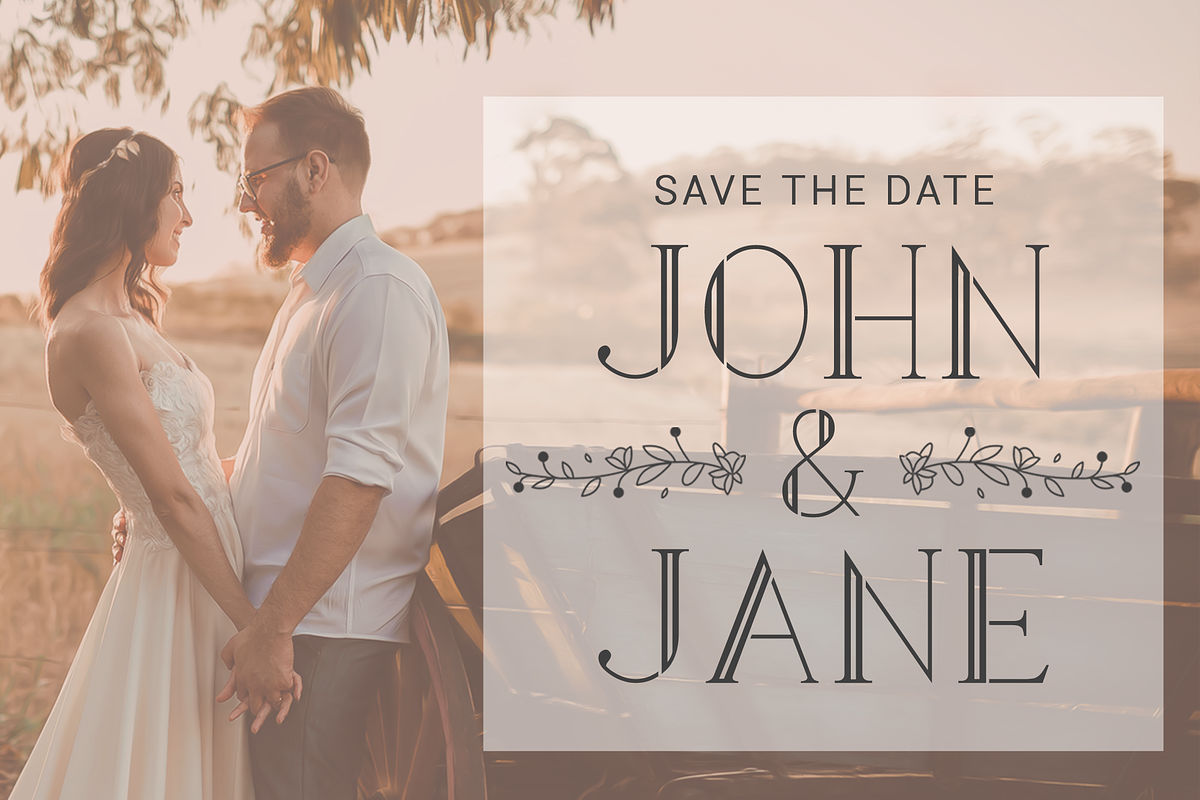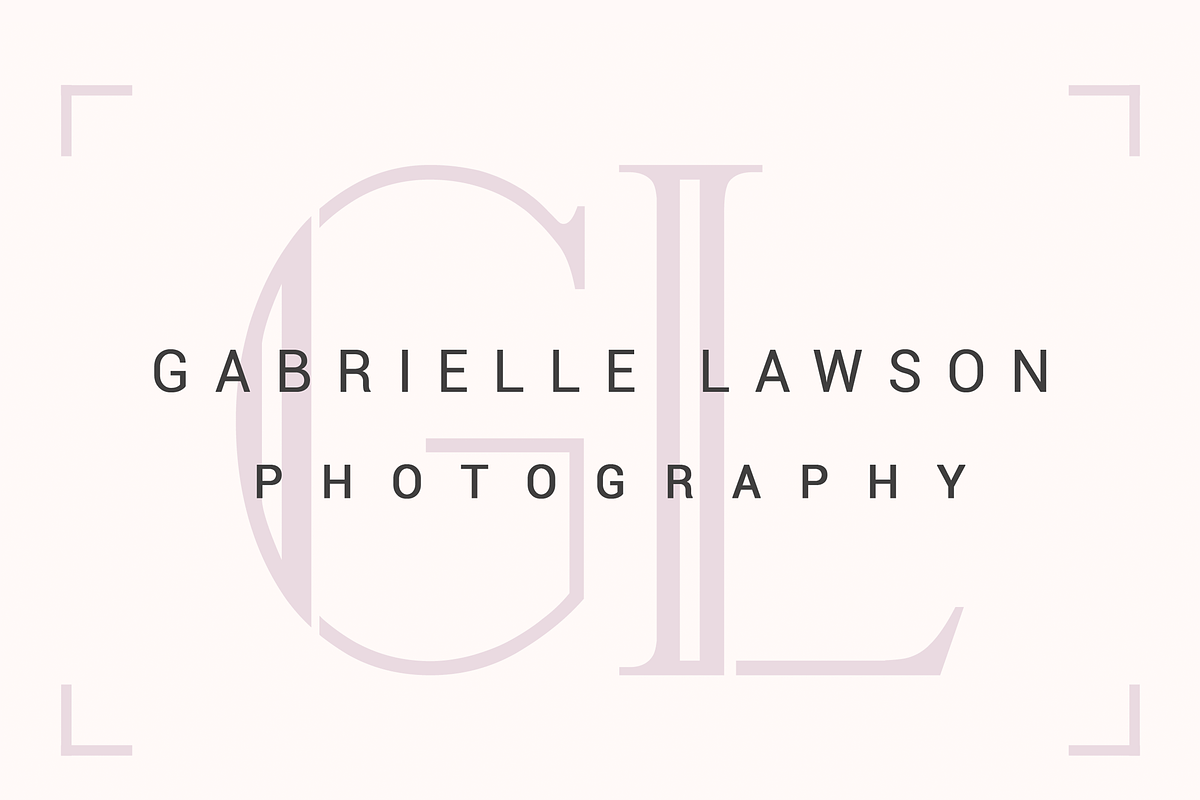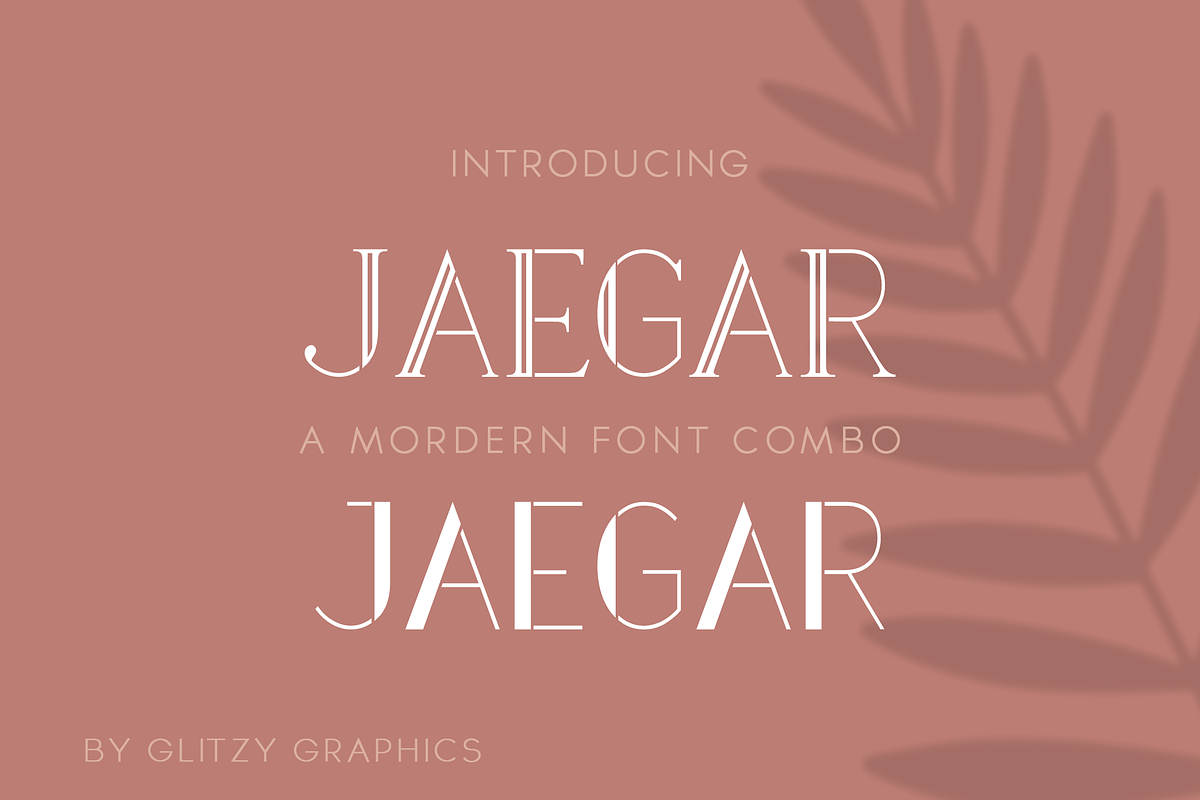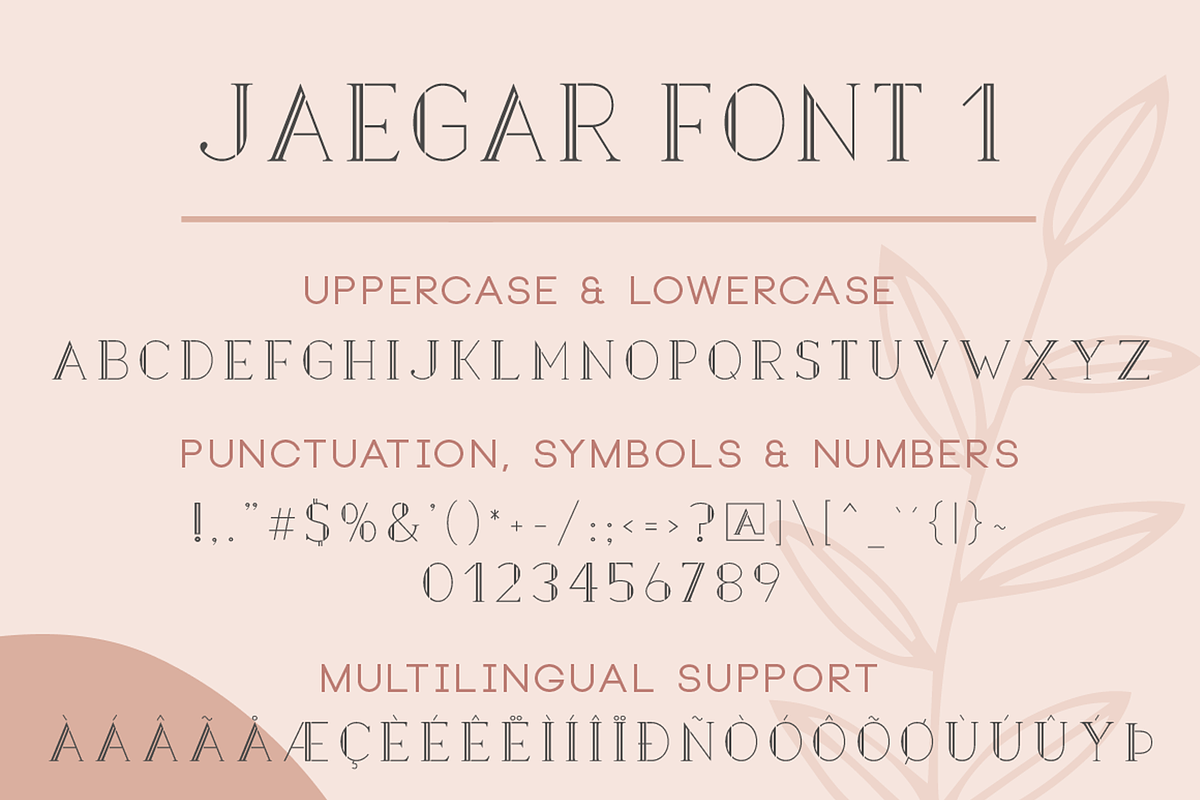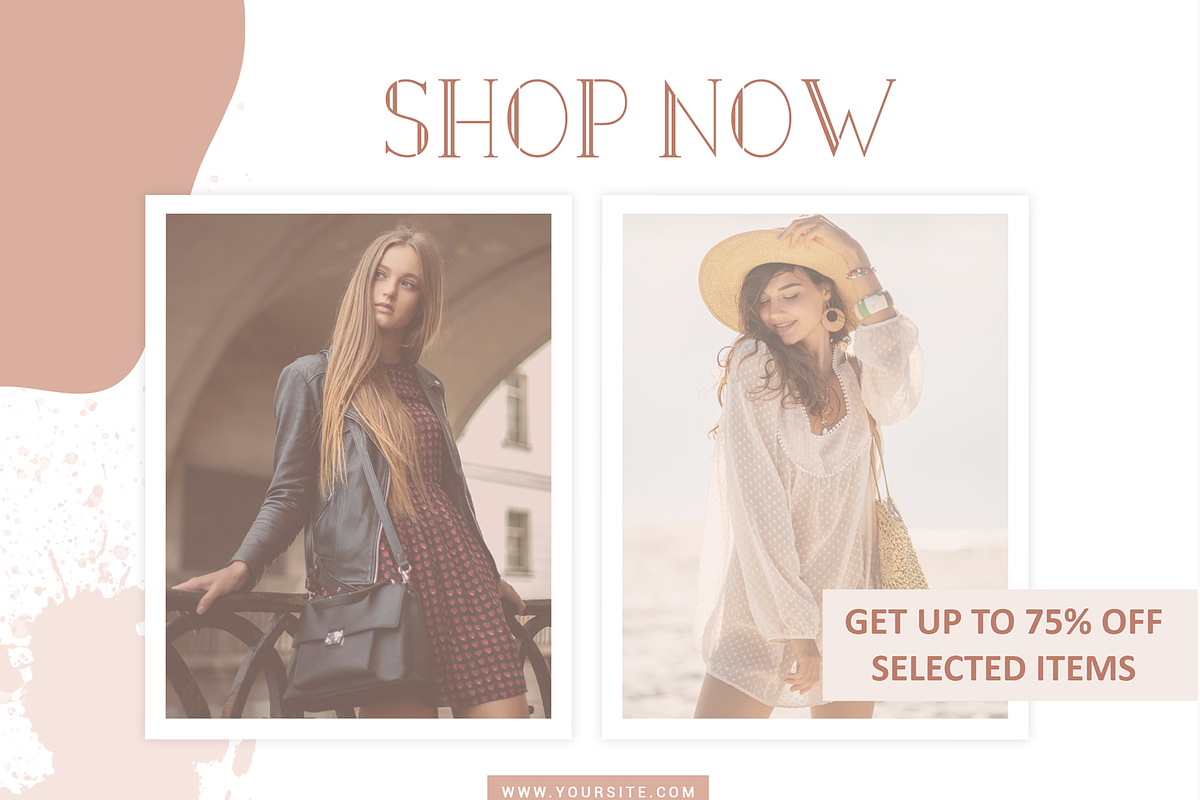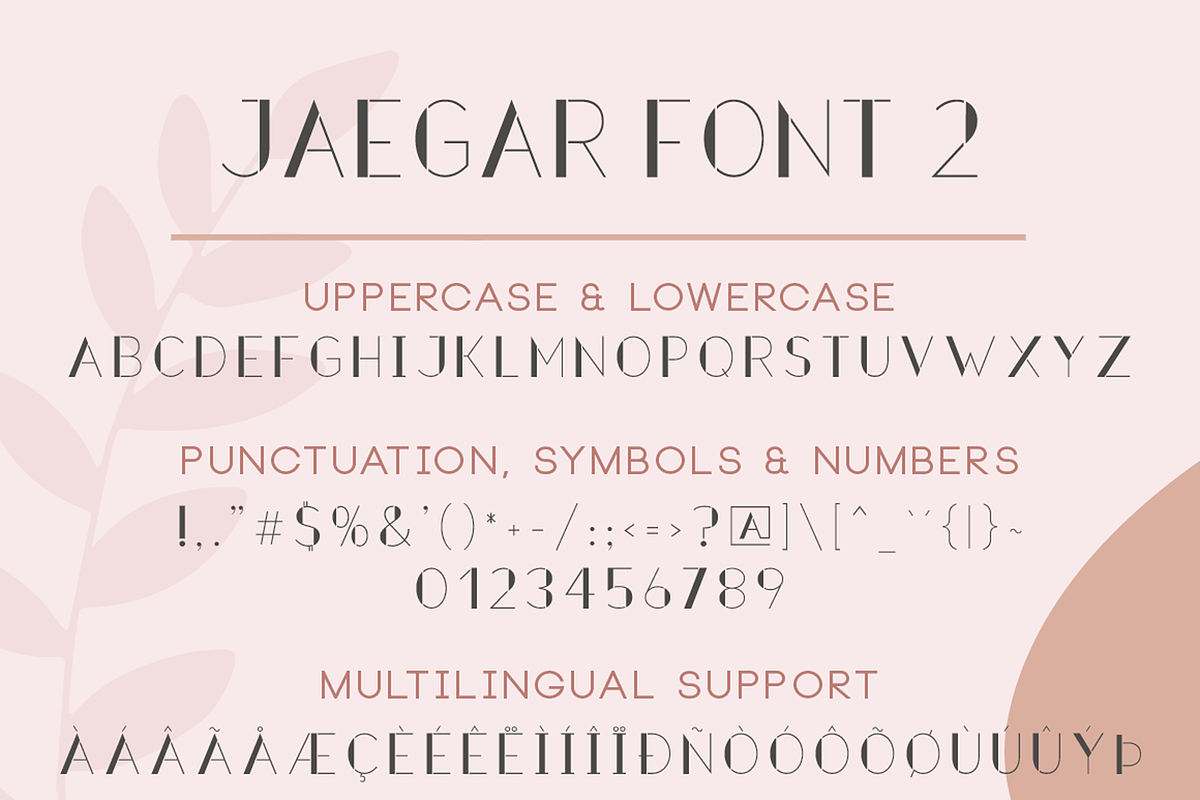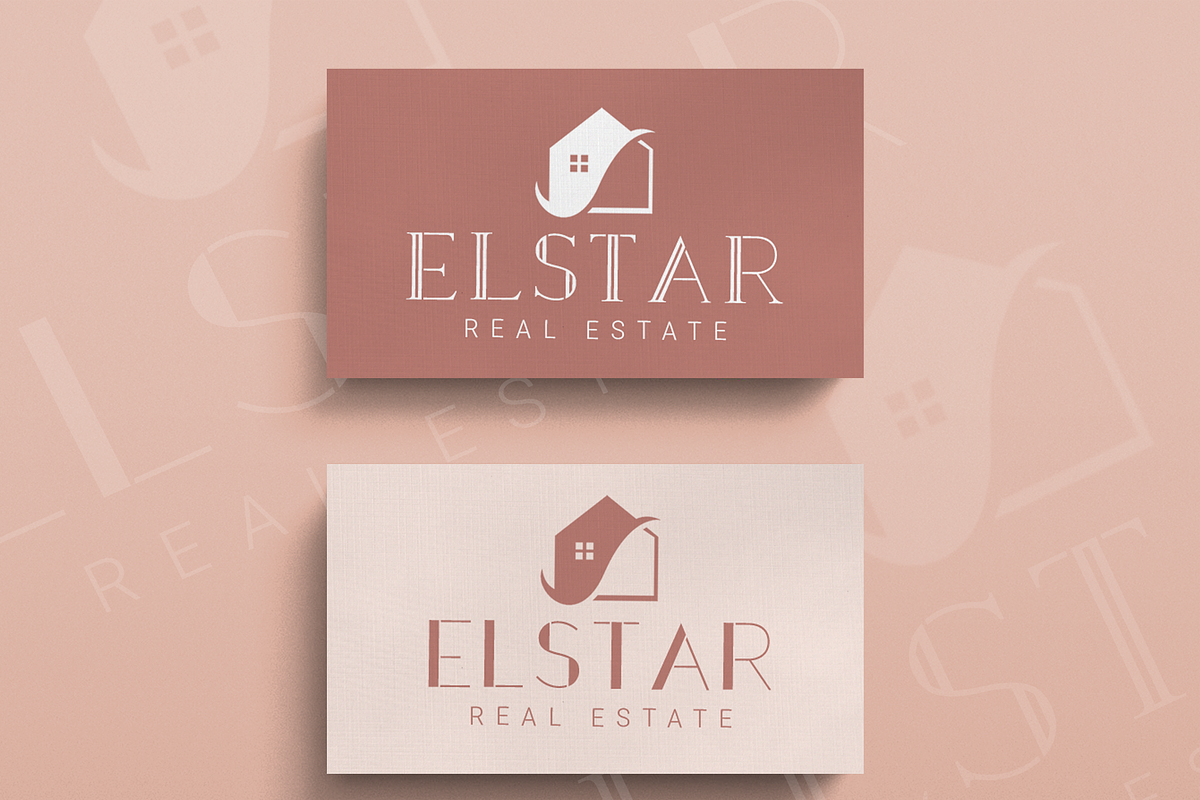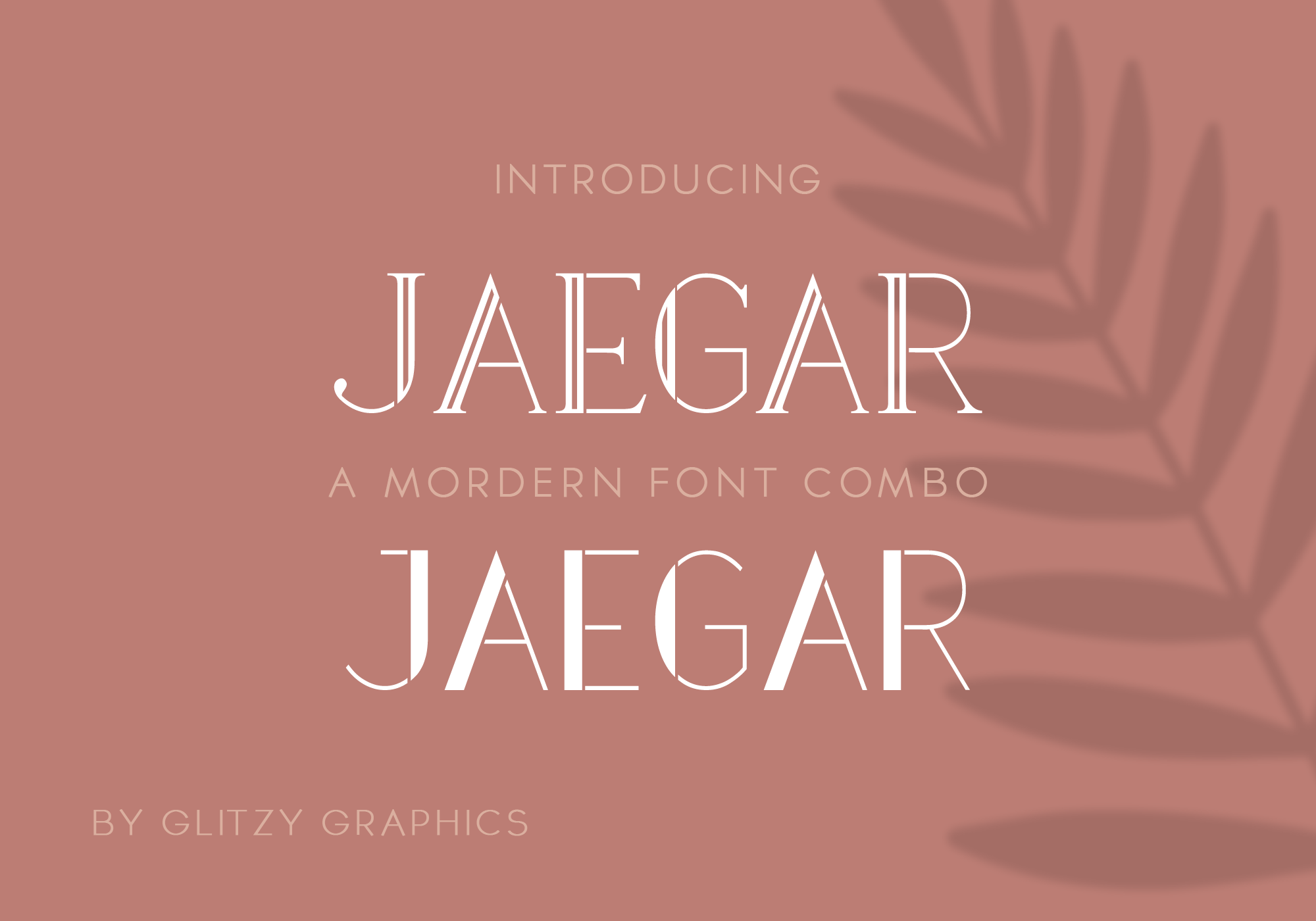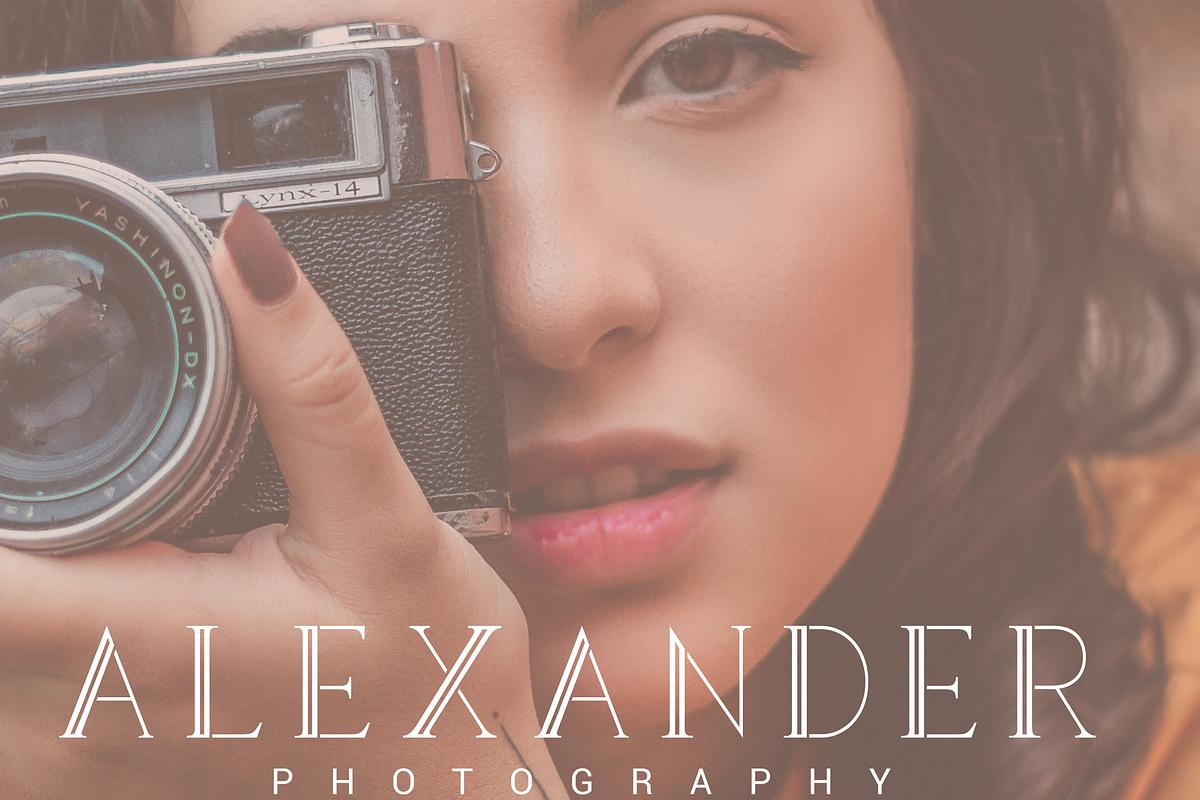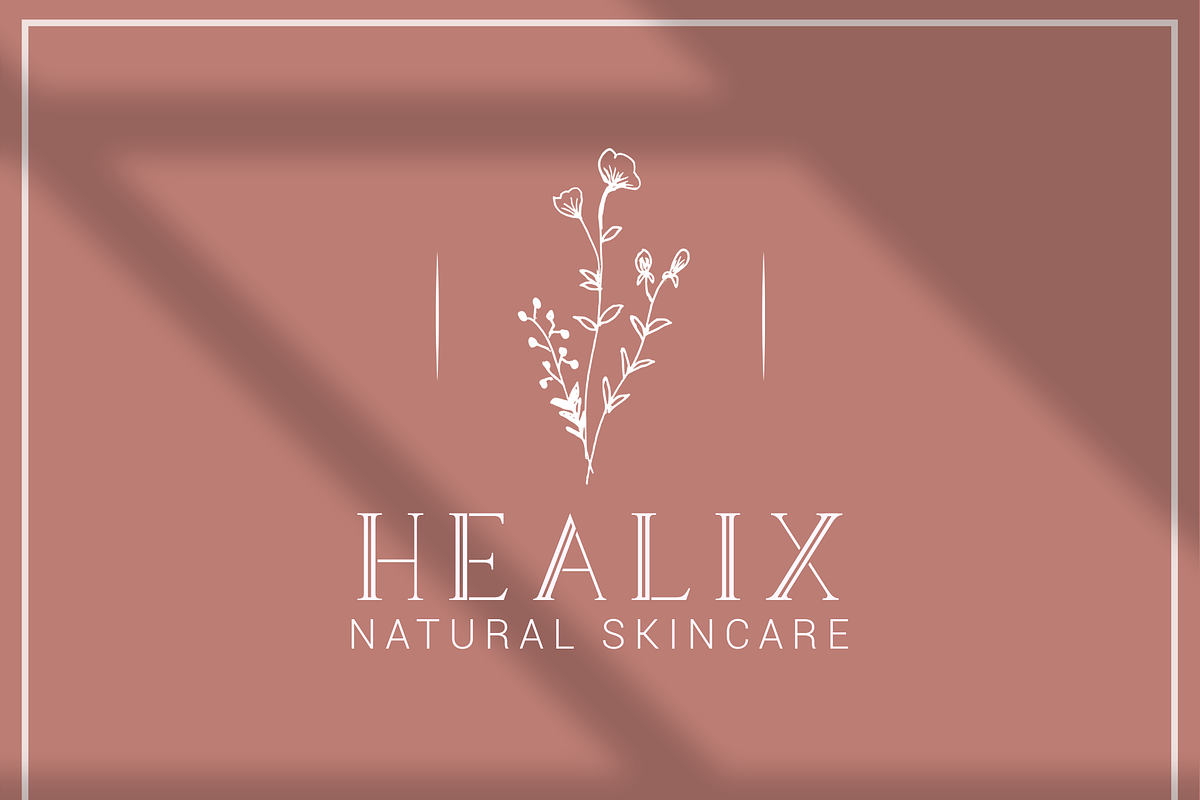
Jaegar Font Combo
Jaegar – A fancy, art deco-inspired font combo with beautiful uppercase characters, numbers, punctuation and multilingual support. Jaegar 1 & 2 are made for headlines and titles, but it can also be used for various purposes such as logos, advertising, t-shirts, letterhead, posters, Magazine design, labels, badges and so much more.